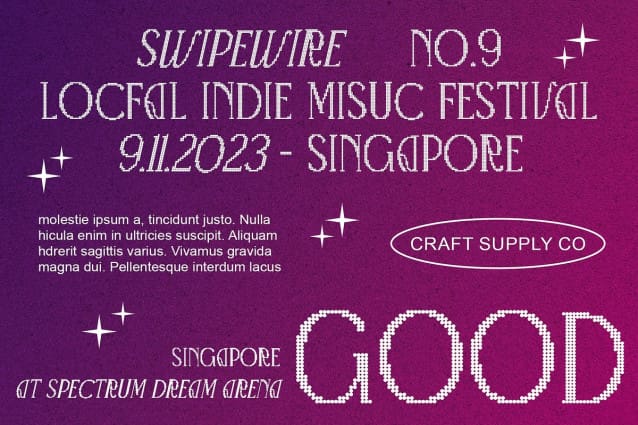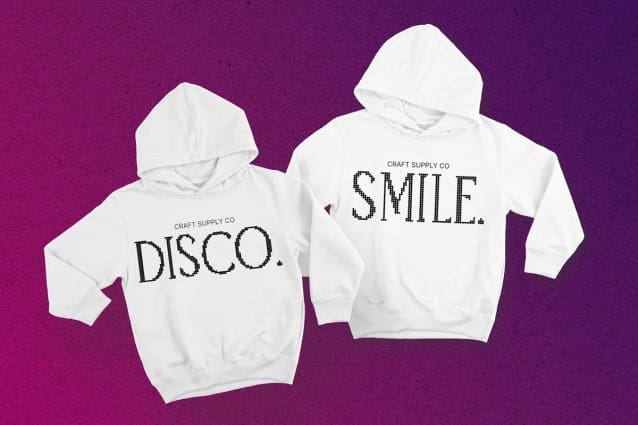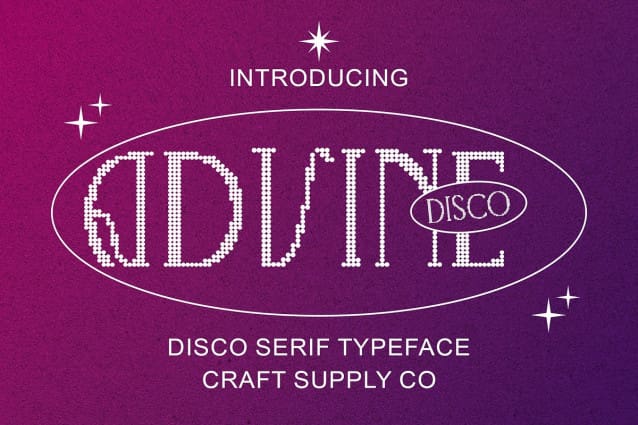
Advine Disco Font
Advine Disco Font: A Groovy Serif Experience. Inspired by Disco Lights Advine Disco channels the vibrant energy of disco lights, infusing every character with dynamic flair and excitement. Its design captures the essence of disco’s glitz and glam.
Perfect for Display Tailored for display purposes, This font shines in various applications, from event posters to album covers. Its eye-catching design ensures your message gets noticed in style.
Captivating Disco Vibes With This font, immerse yourself in the electrifying world of disco. Each letter pulsates with energy, bringing a touch of nostalgia and excitement to your designs.
Versatile and Dynamic Beyond its disco-inspired aesthetic, This font offers versatility in application. Whether used in branding, advertising, or digital media, its groovy charm adds a unique touch to any project.
Let the Groove Begin This font invites you to embark on a journey back to the era of disco. Its vibrant design and dynamic presence make it the perfect choice for those seeking to infuse their designs with retro charm and excitement. Let the groove begin with This font!